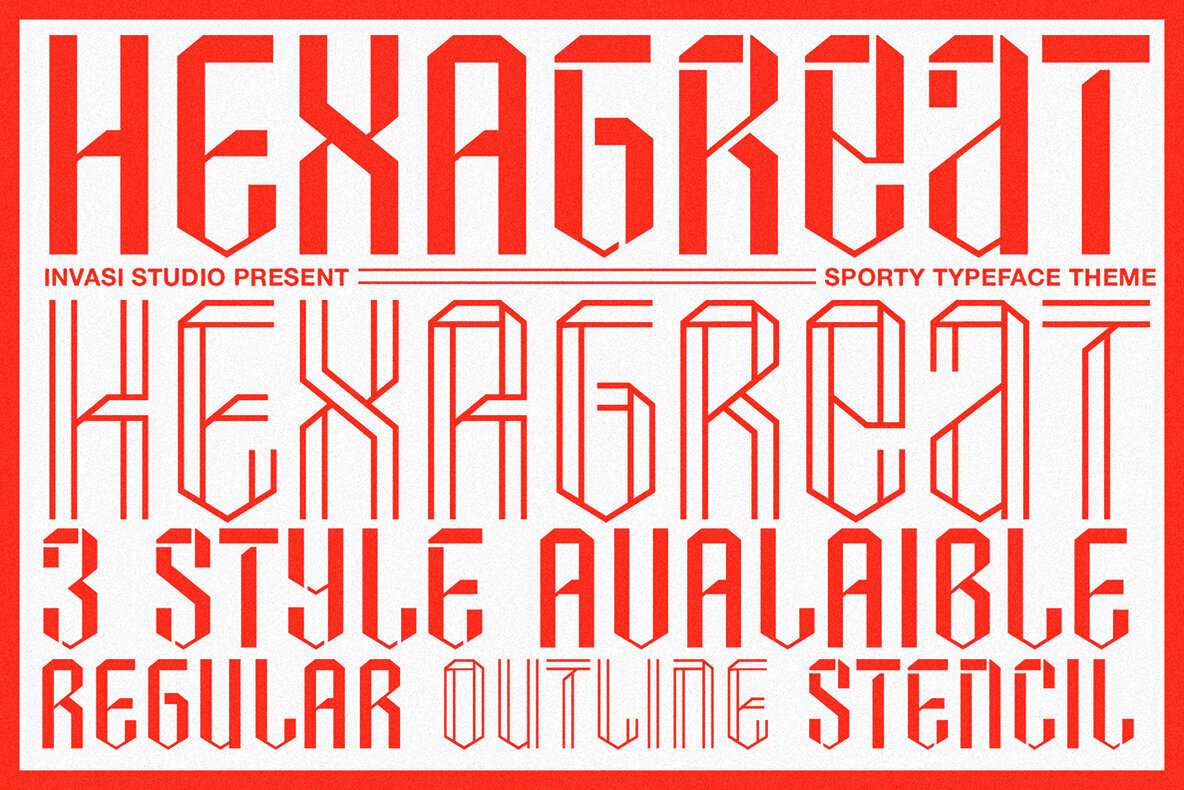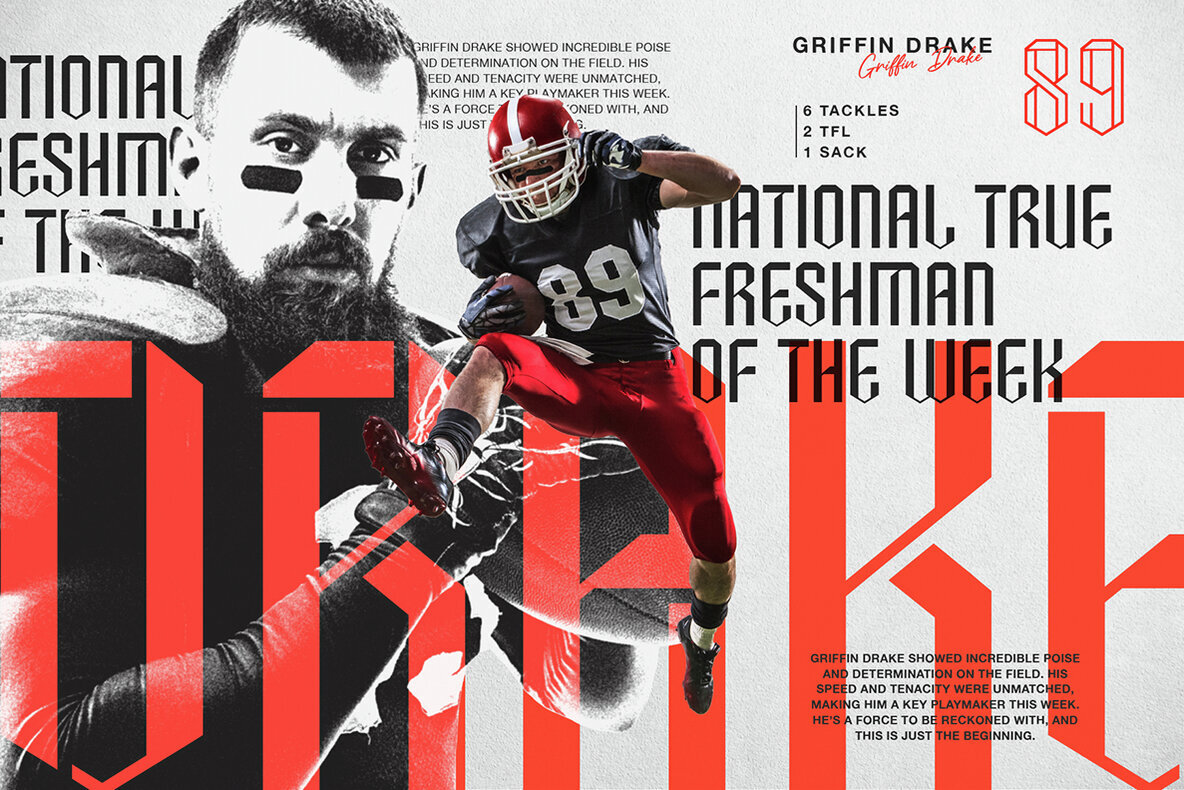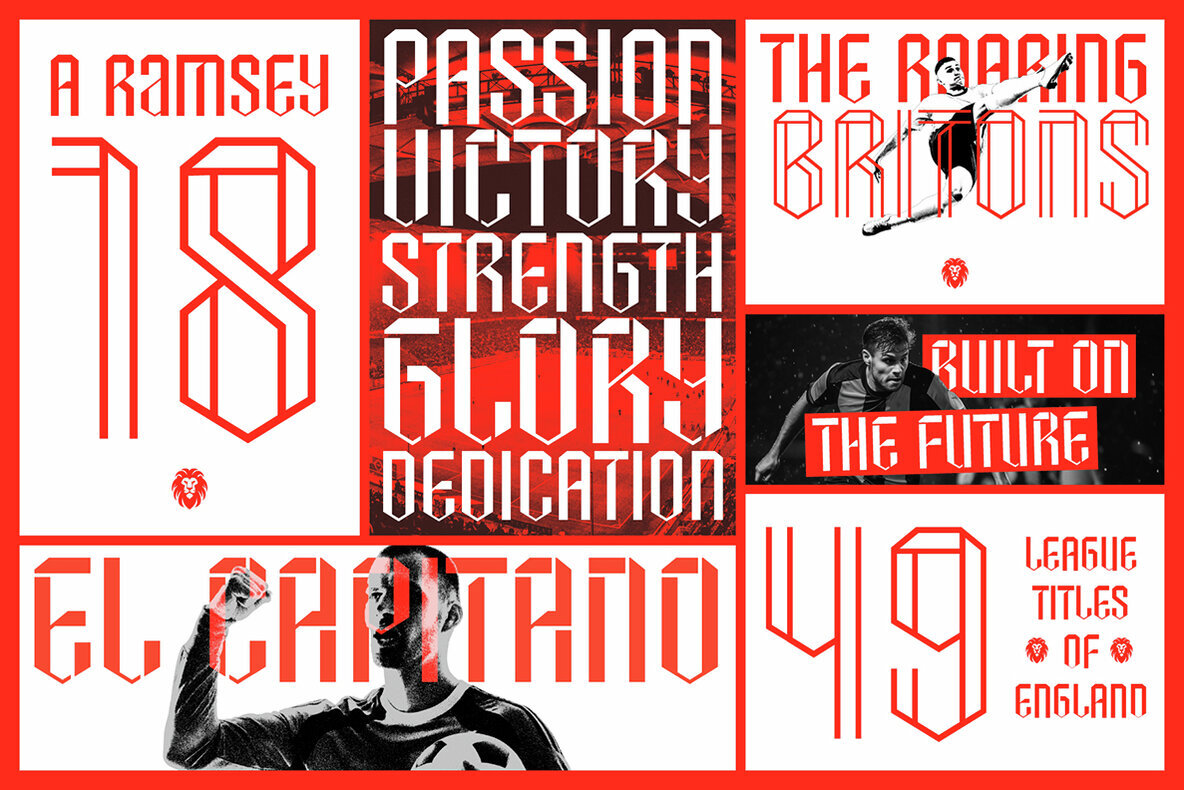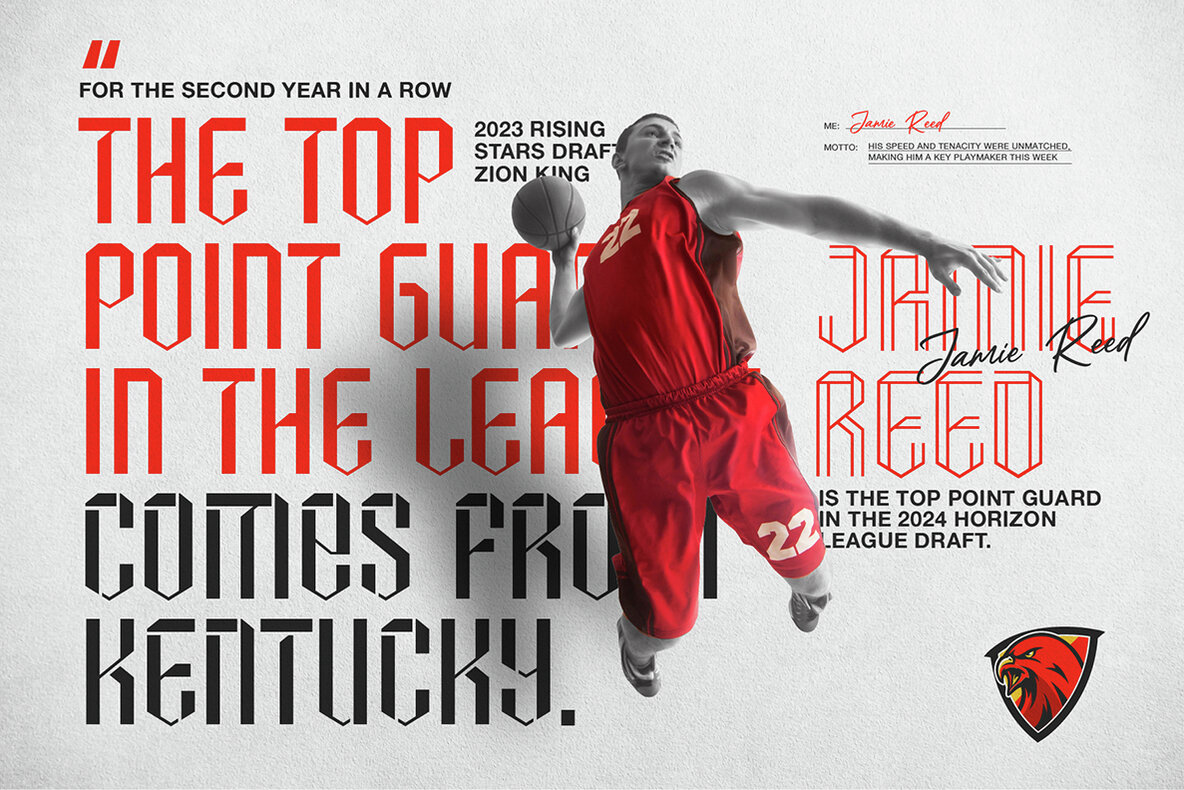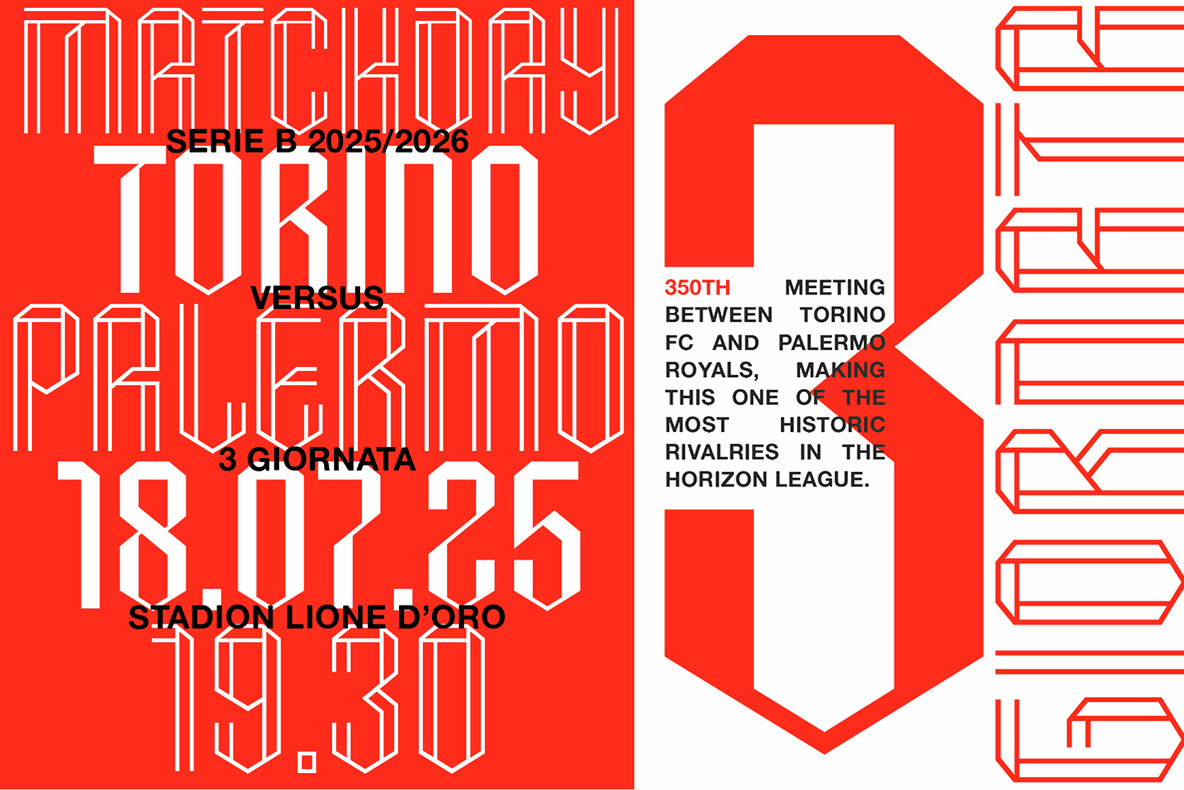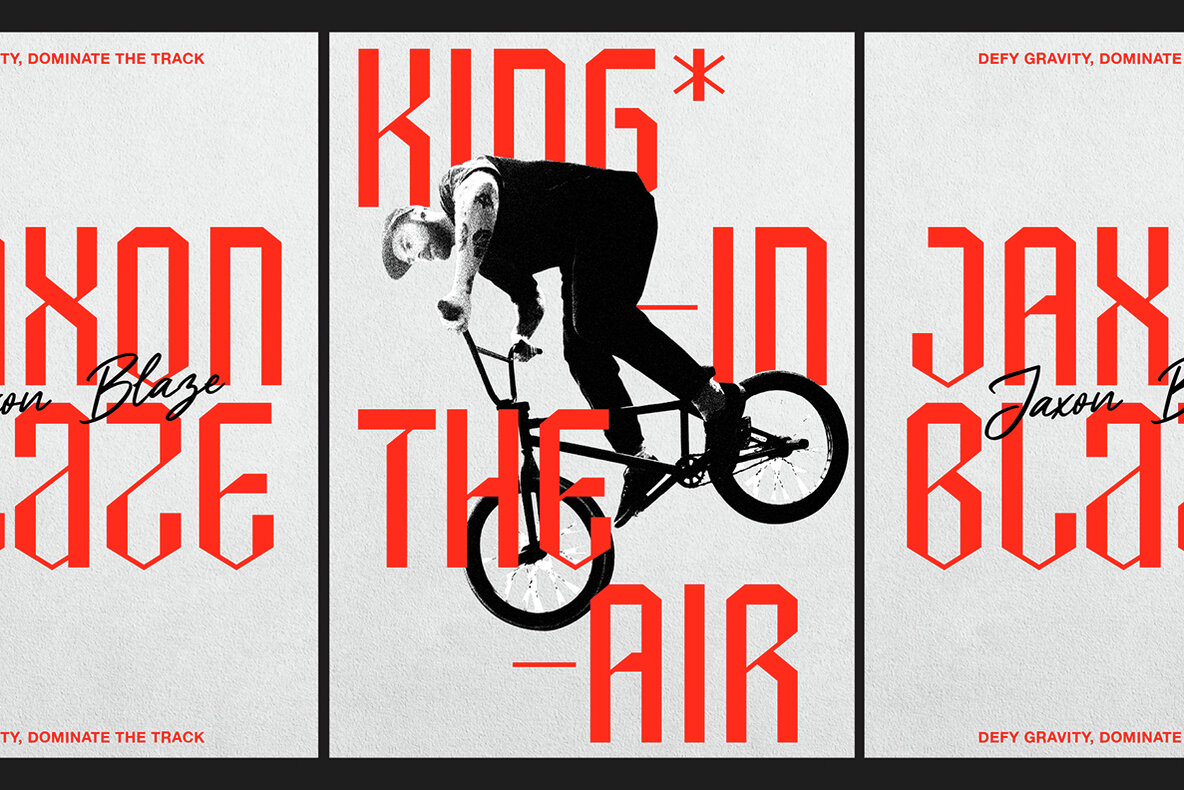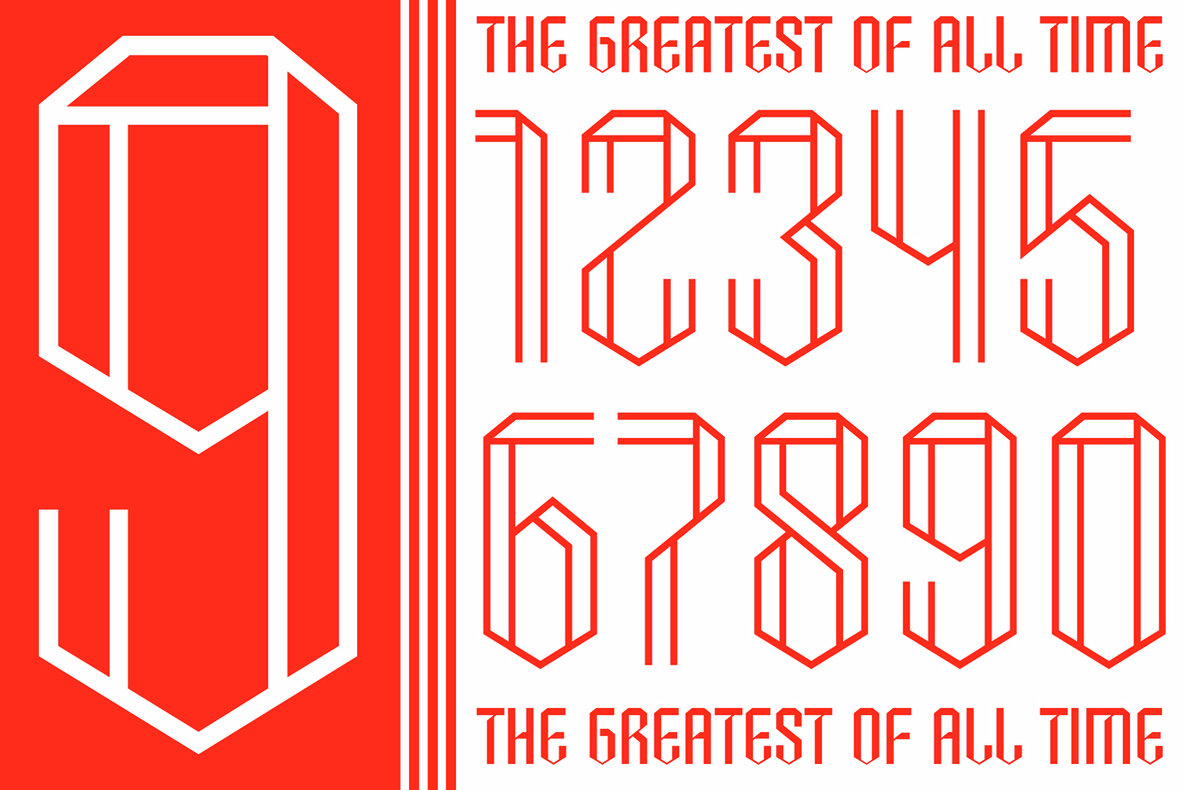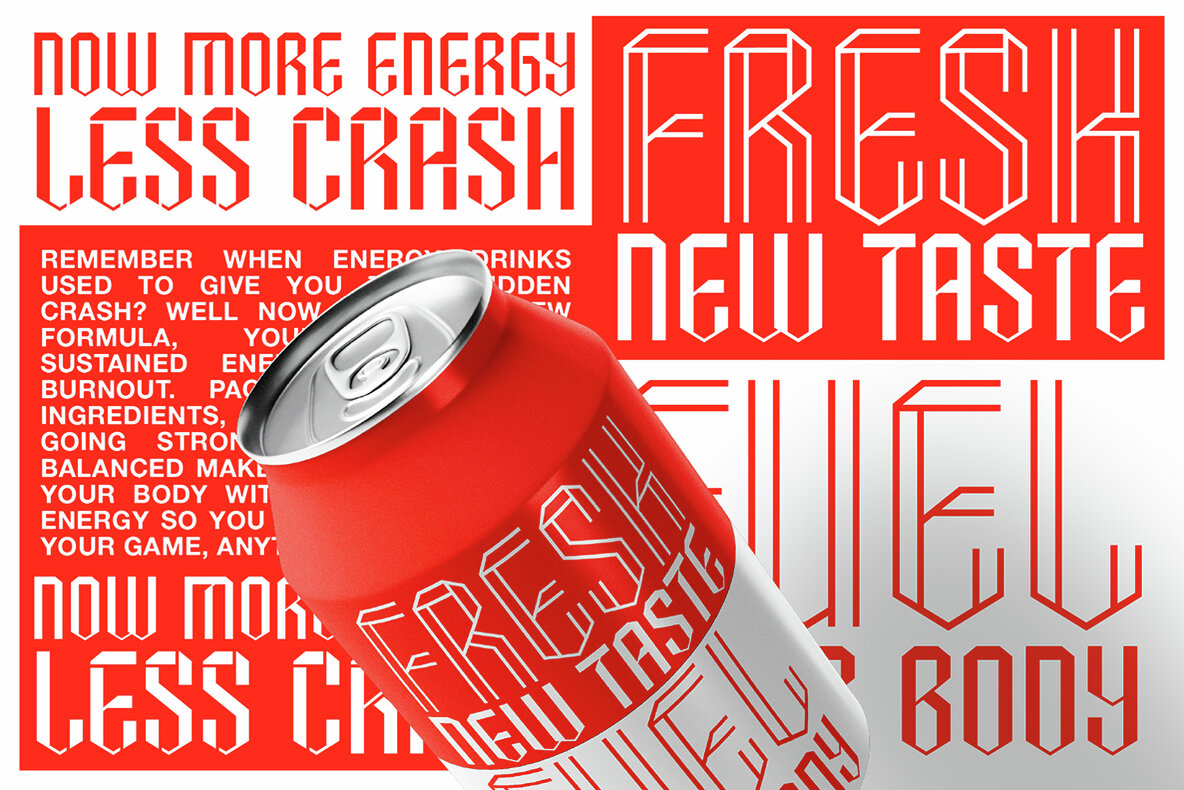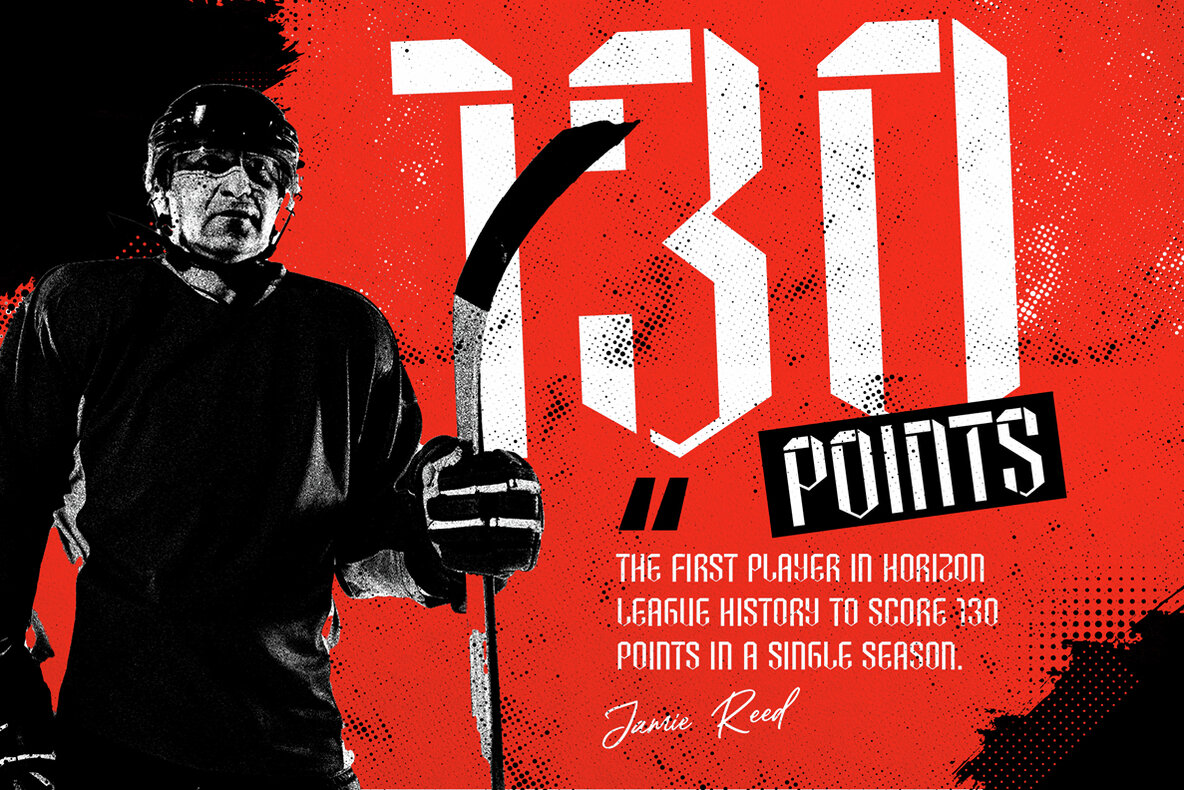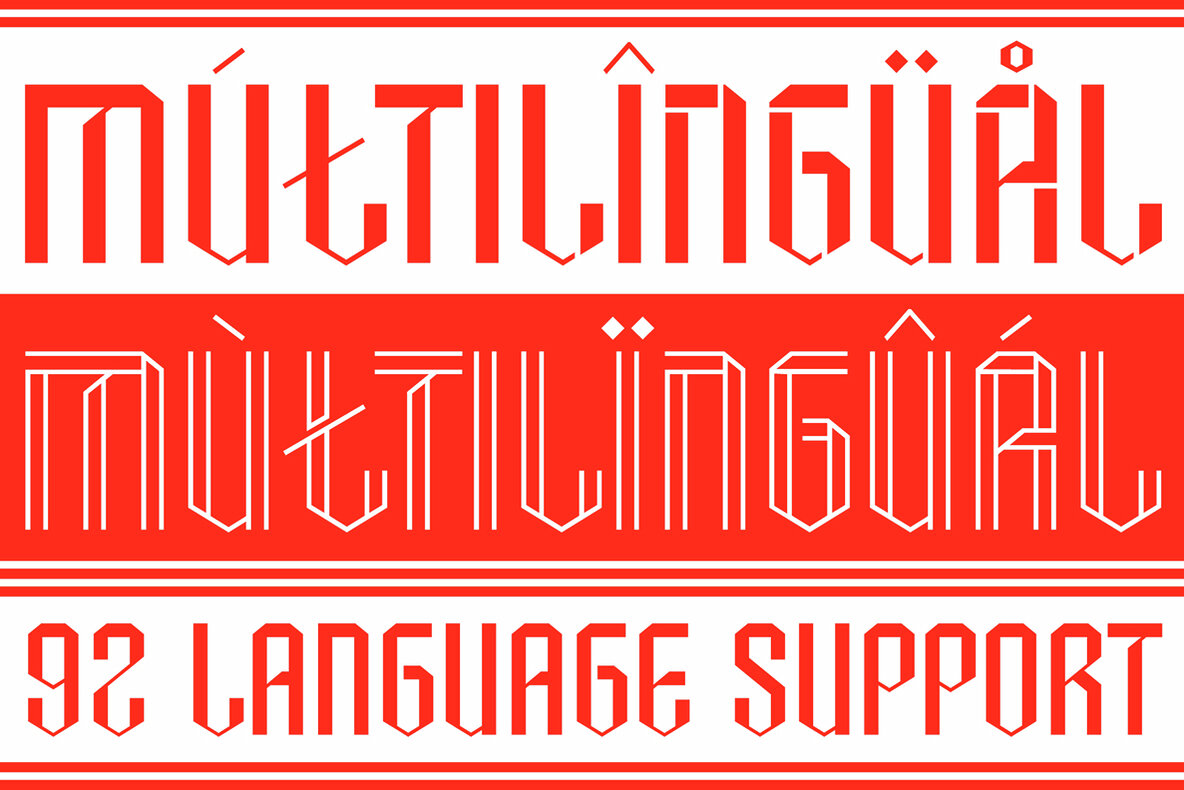
Hexagreat Font
Hexagreat is a dynamic typeface created to infuse designs with the competitive essence and vigor of sports. Drawing inspiration from athletic prowess, this font is designed for impactful, bold impressions that animate any project with vitality. It includes three distinctive styles: Regular, Outline, and Stencil. Each style encapsulates the thrill of motion, ensuring your message remains prominent and clearly conveyed.
Built for versatility, Hexagreat comes with a set of alternates and robust support for 92 Latin languages, making it highly adaptable for various design needs. It is perfectly suited for athletic branding, product packaging, team merchandise, and sports event posters. With its modern, edgy appearance, this typeface captures attention, transforming sports brands and energy drink designs into powerful statements of style and force.